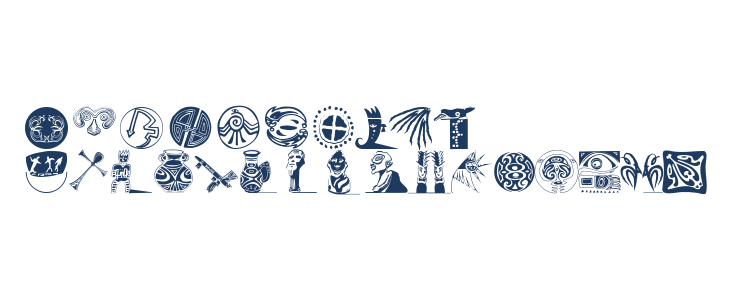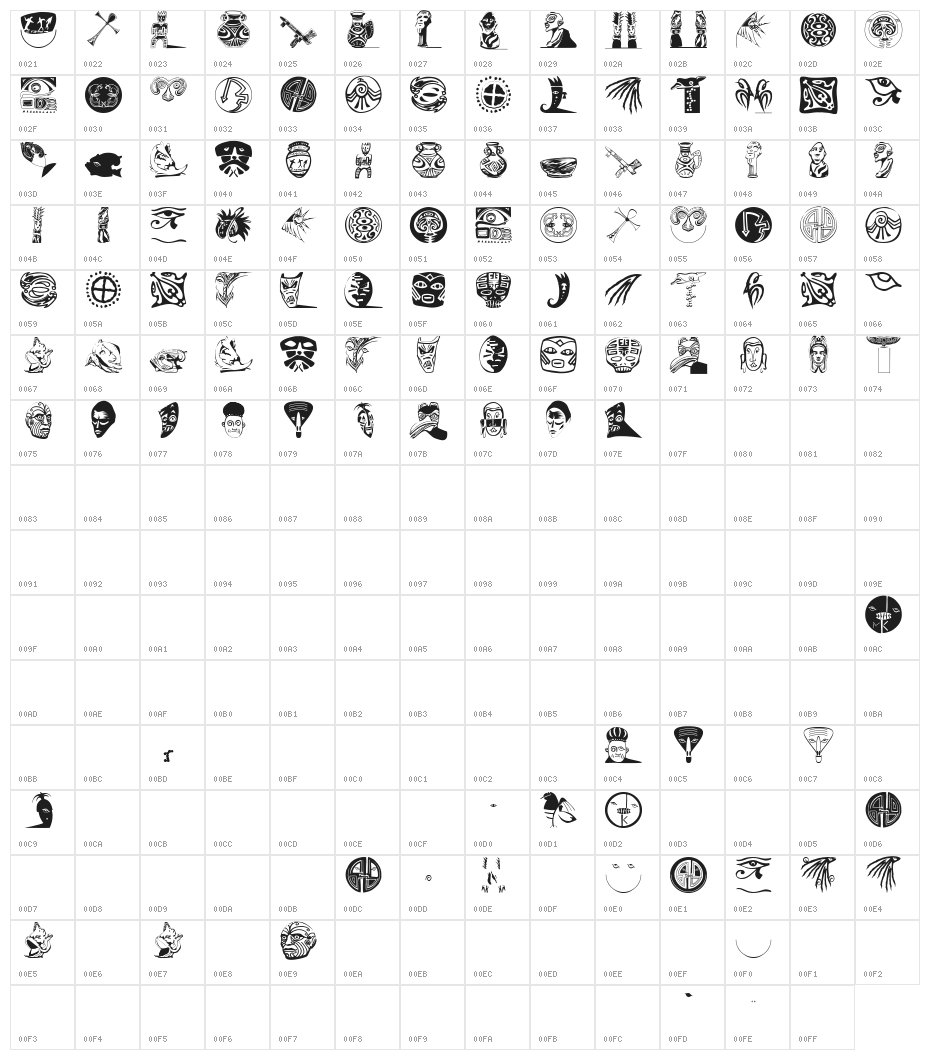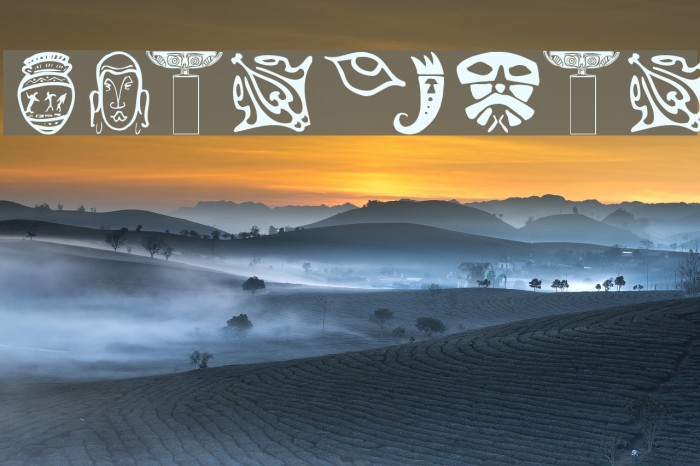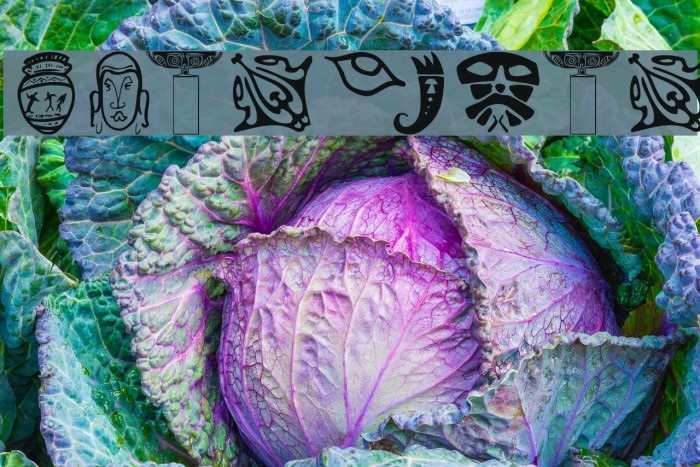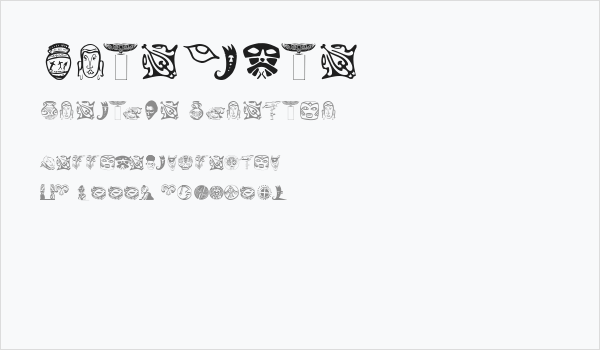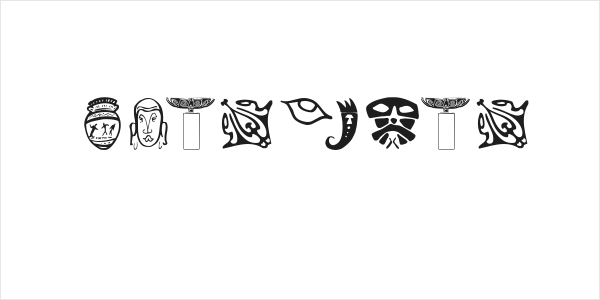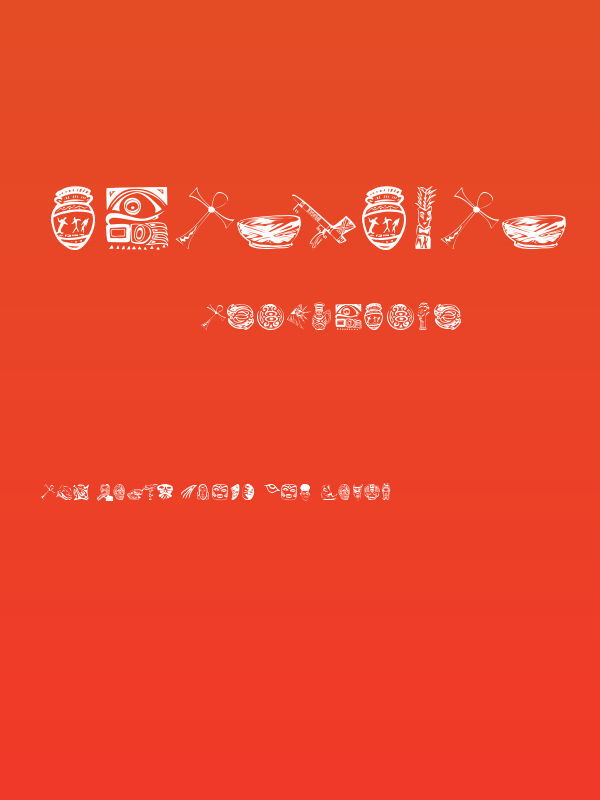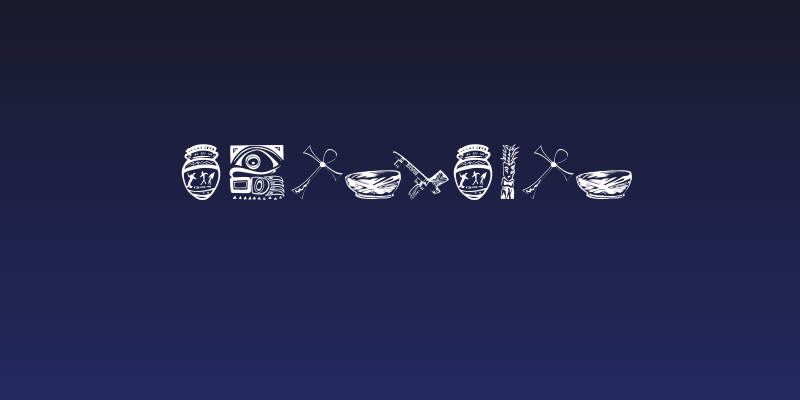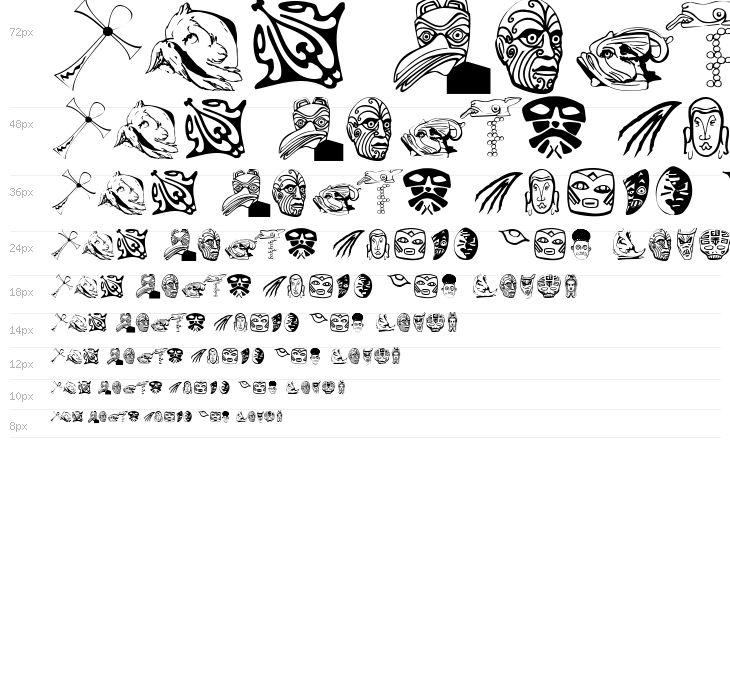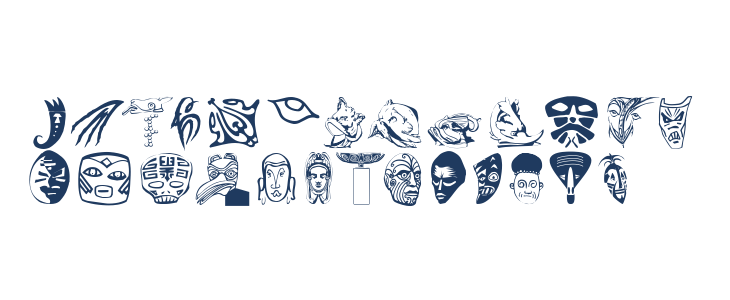
Artefakte Font
Artefakte Description
A highly decorative dingbat font featuring a variety of intricate symbols, masks, pottery, tribal motifs, and ancient artifacts, rendered in bold black and white line art. Each glyph is a unique pictogram inspired by historical and cultural artifacts from different civilizations.
| Overall Style | Decorative, Ethnic, Historical |
| Use Case | Logos, Posters, Decorative elements, Themed graphics |
| Proposed Projects | Posters, educational materials, museum guides, themed invitations, branding for cultural events, scrapbooking, and creative design projects needing historical or tribal motifs. |